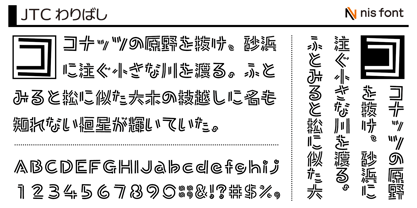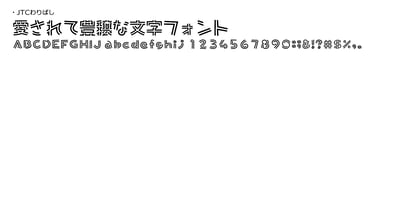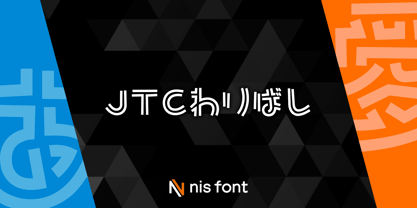
OT-NIS_WARI
by NIS Fonts
The OT-NIS_WARI Font Family was designed by and published by NIS Fonts. OT-NIS_WARI contains 1 styles. More about this family
This is the inline version of the "OT-NIS_JYAUN Ultra Bold" font. However, rather than simply hollowing out the middle, significant design effort has been made to enhance readability—for example, certain parts are represented with single lines. While the characters may be somewhat difficult to read, this adds a playful charm to the font. It includes kana, kanji, and symbols from the JIS Level-1 standard only.